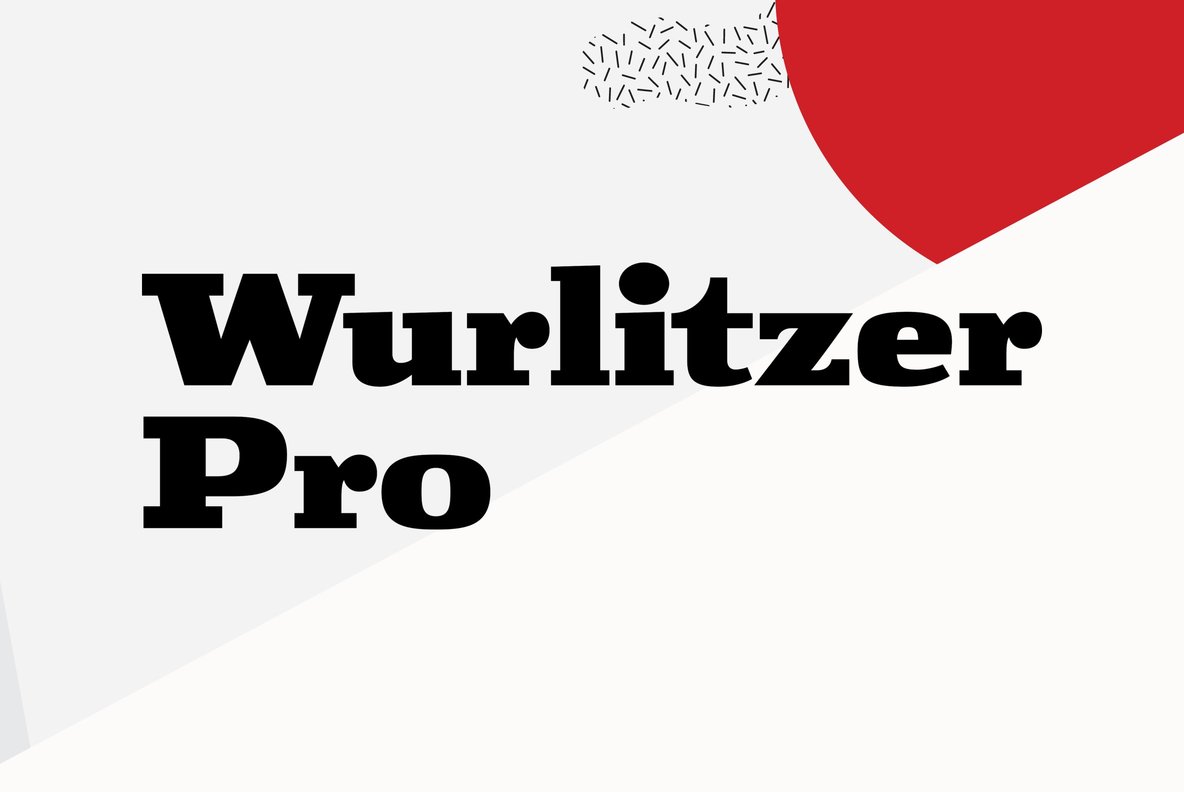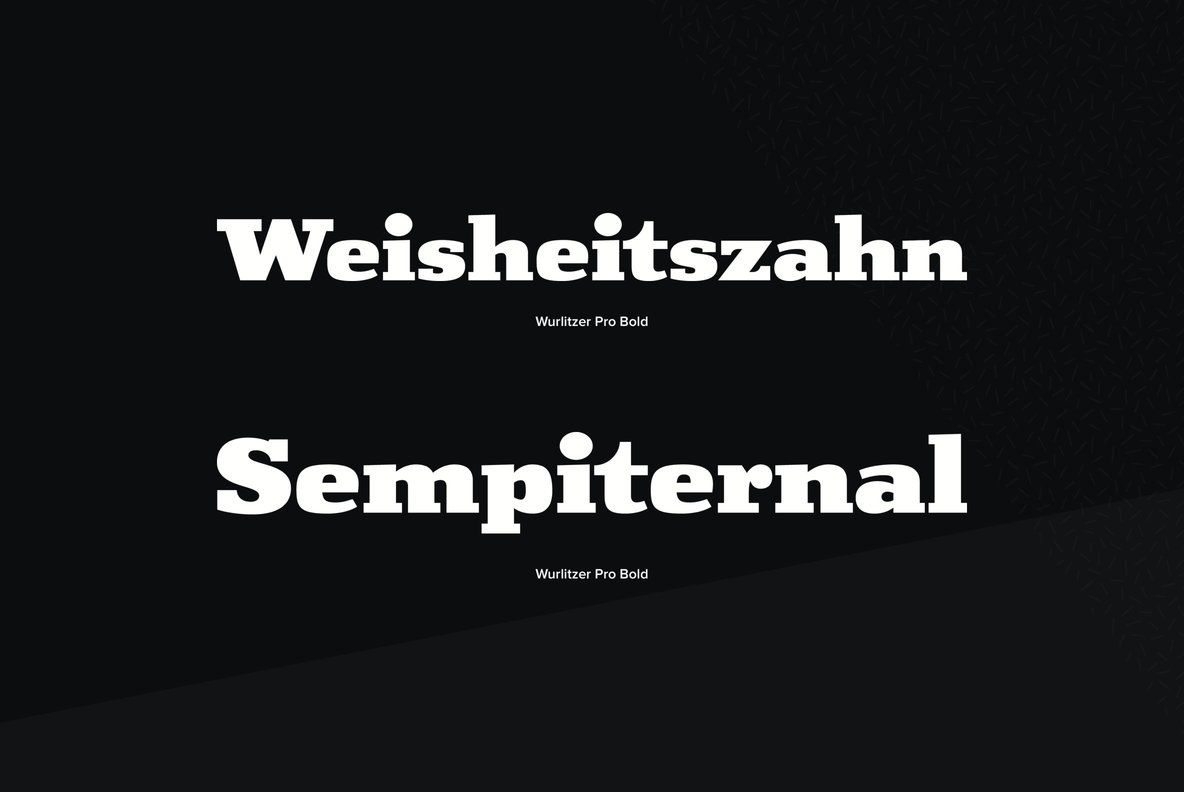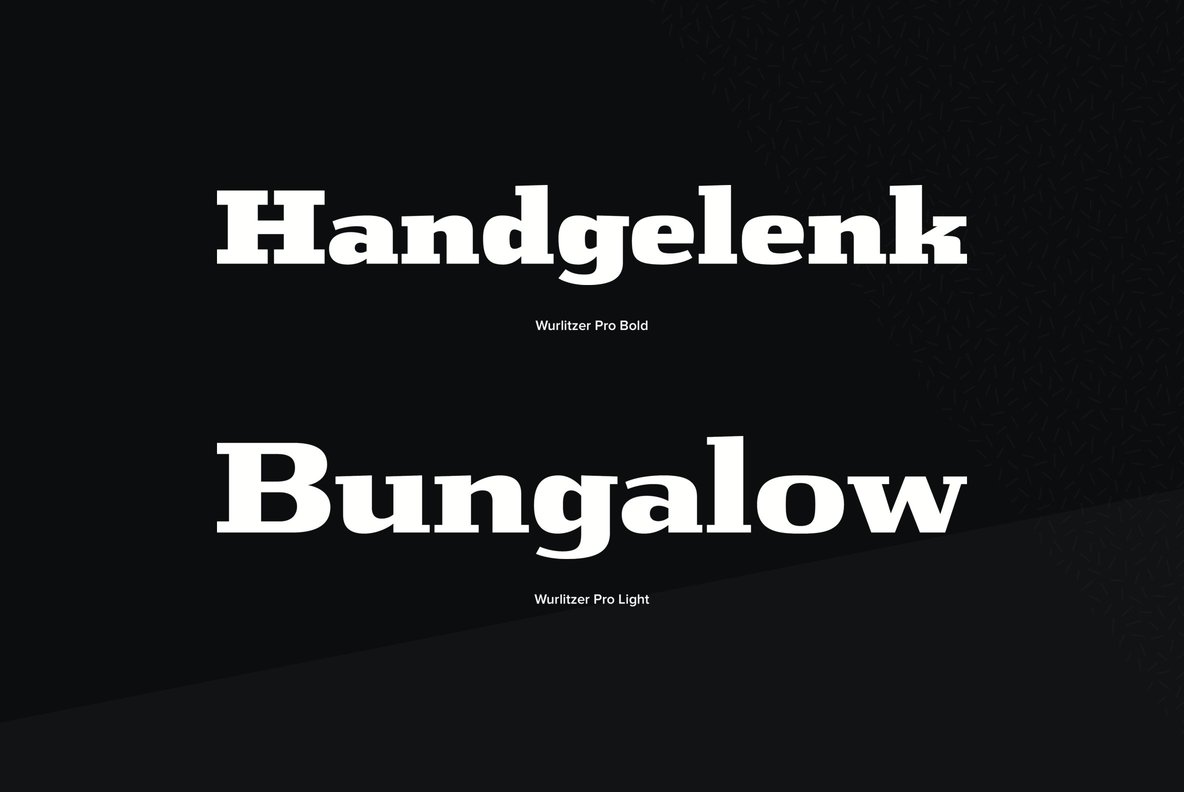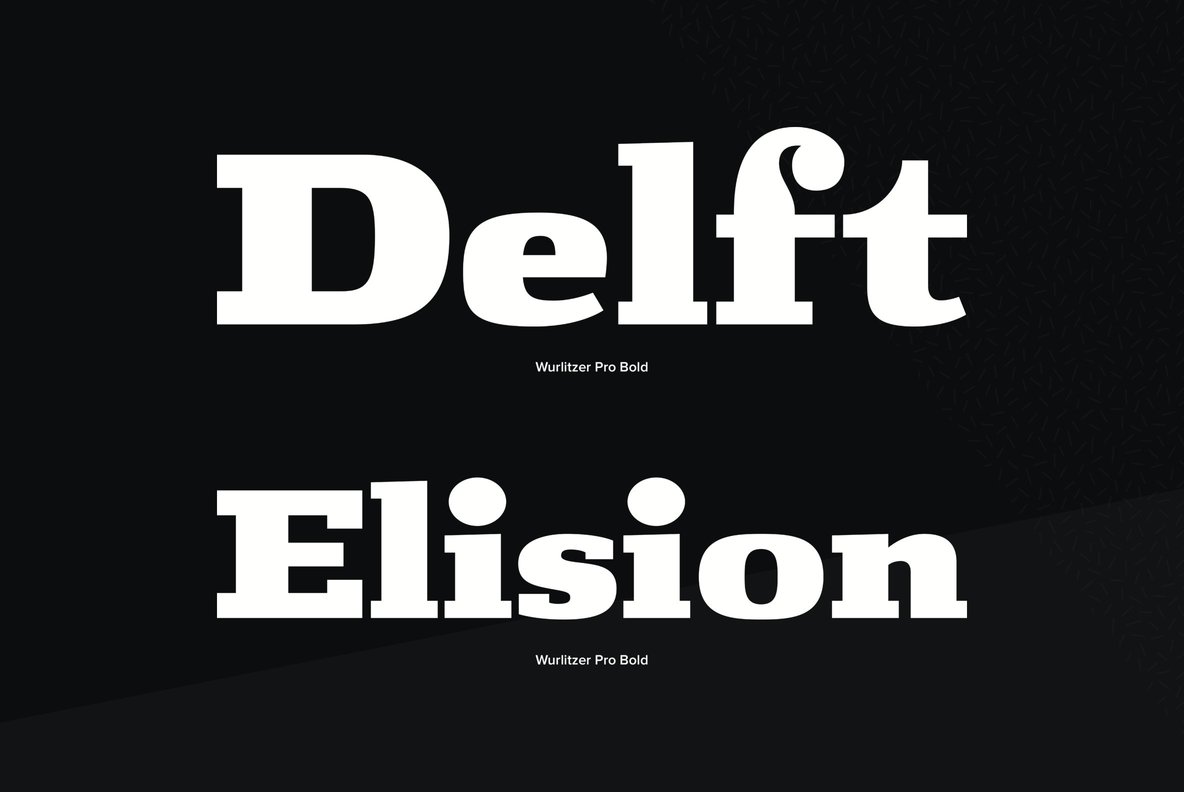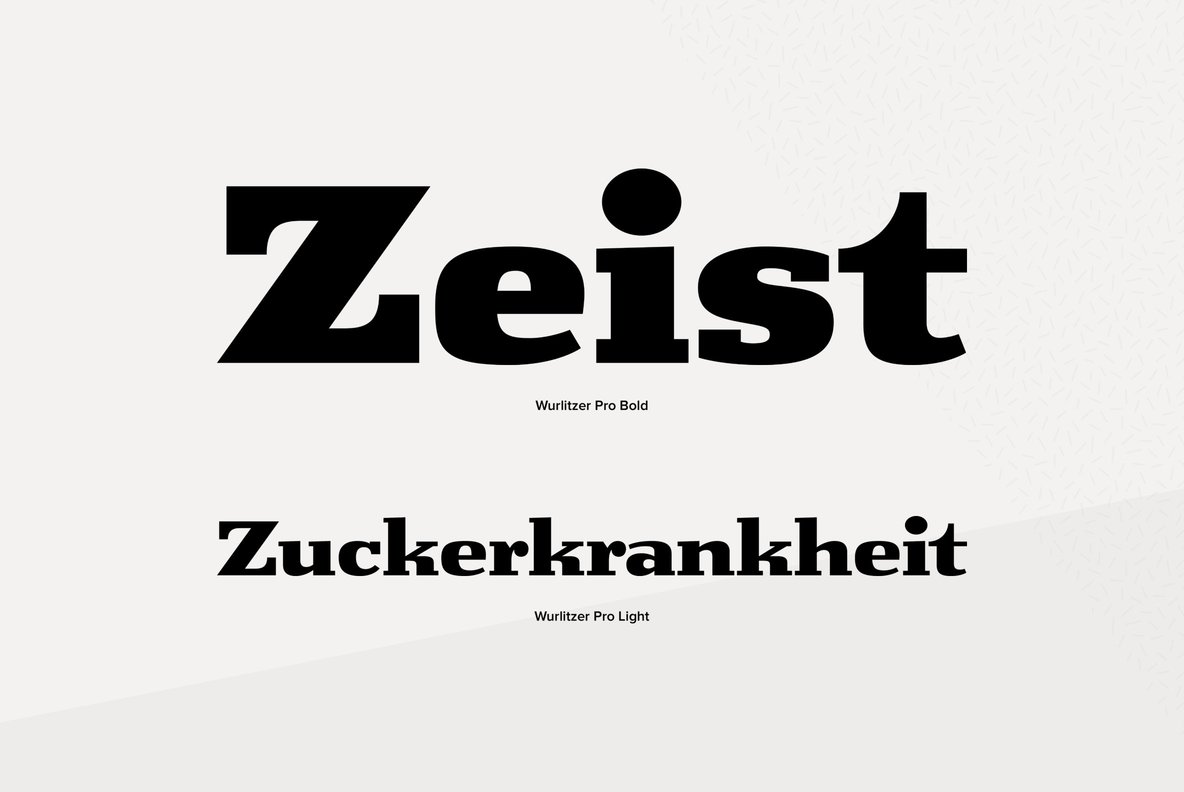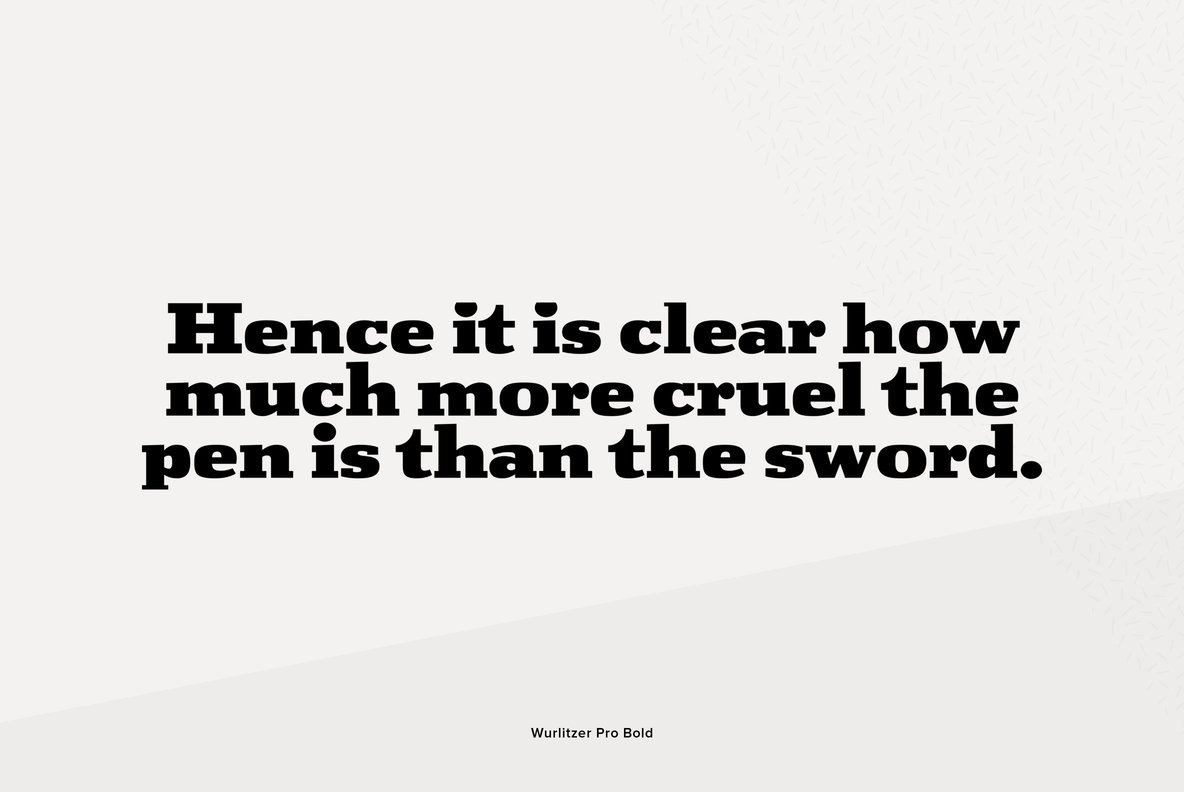
Designed by Steve Jackaman & Ashley Muir. This design was inspired by an early 20th century woodtype. Wurlitzer contains all the high-end features expected in a quality OpenType Pro font.